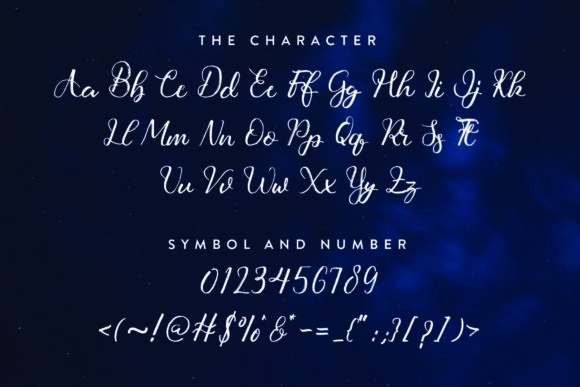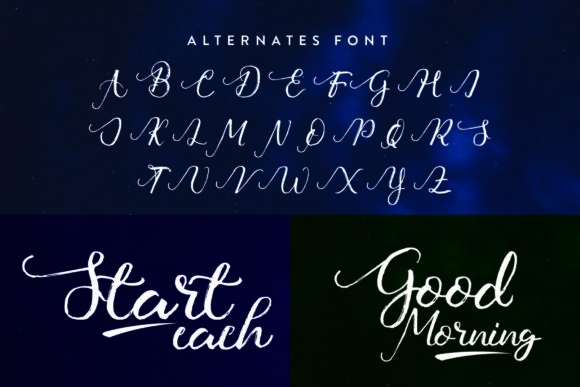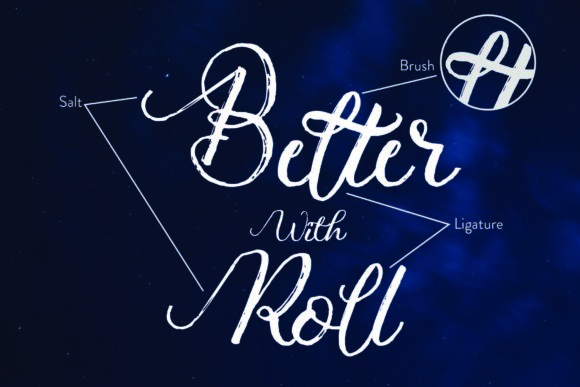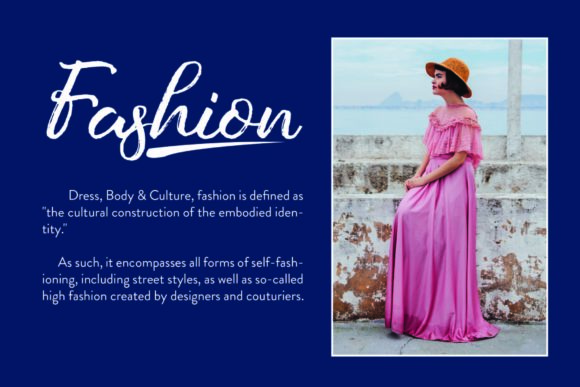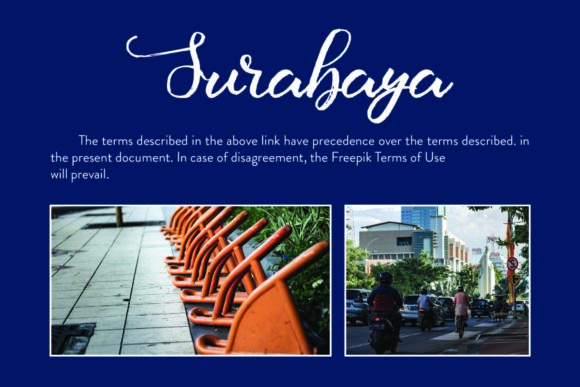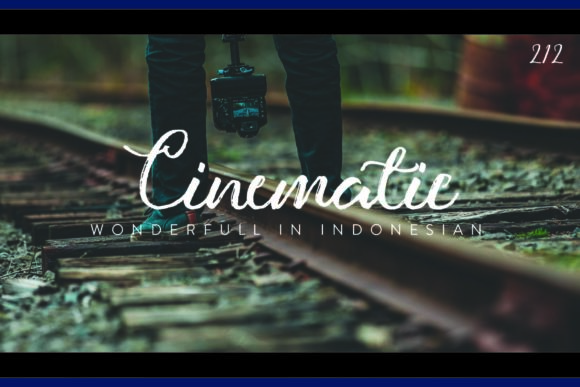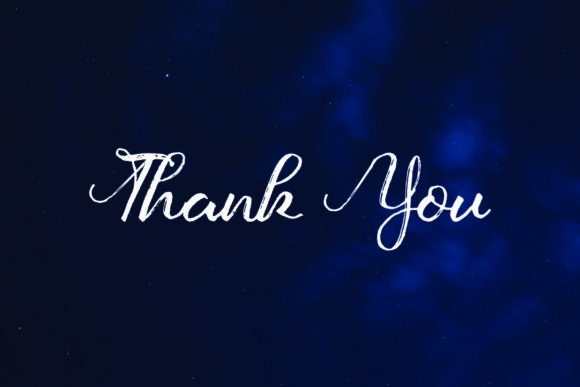
Allisabeth Font
Introducing Allisabeth, a simple and cursive brushed handwritten font that adds a touch of elegance and versatility to your fonts’ library. With its clean and flowing brush strokes, Allisabeth is a valuable asset that has the potential to elevate any creation, regardless of the topic or design context.
Allisabeth’s simple and cursive brushed handwritten design sets it apart as a font that exudes a sense of effortless beauty. Each letter carries the charm of handcrafted brush strokes, creating a natural and flowing appearance. This simplicity and cursive style add a touch of elegance to your designs, enhancing their overall aesthetic appeal.
The versatility of Allisabeth allows it to be applied to various design projects. Whether you’re working on logos, branding materials, invitations, social media graphics, or any other creative endeavor, Allisabeth brings a sense of sophistication and versatility that complements different design contexts.
Allisabeth’s simplicity and cursive style make it a timeless addition to your font library. It has the ability to adapt to different themes and topics, effortlessly enhancing the visual appeal of your creations. Whether it’s for a minimalistic design, a romantic concept, or a modern composition, Allisabeth’s clean and cursive brush strokes add a touch of elegance that resonates with viewers.
Adding Allisabeth to your fonts’ library opens up a world of possibilities. Its versatility allows it to elevate a wide range of creations, from branding projects to personal stationery, from website headers to social media posts. Allisabeth’s simple and cursive brushed handwritten style adds a unique and personal touch to your designs, making them stand out and captivate attention.
In summary, Allisabeth is a simple and cursive brushed handwritten font that brings elegance and versatility to your fonts’ library. Its clean and flowing brush strokes create a sense of effortless beauty that enhances the visual appeal of your creations. Embrace Allisabeth and let its simplicity and cursive style elevate any design, making it a valuable asset in your creative endeavors.